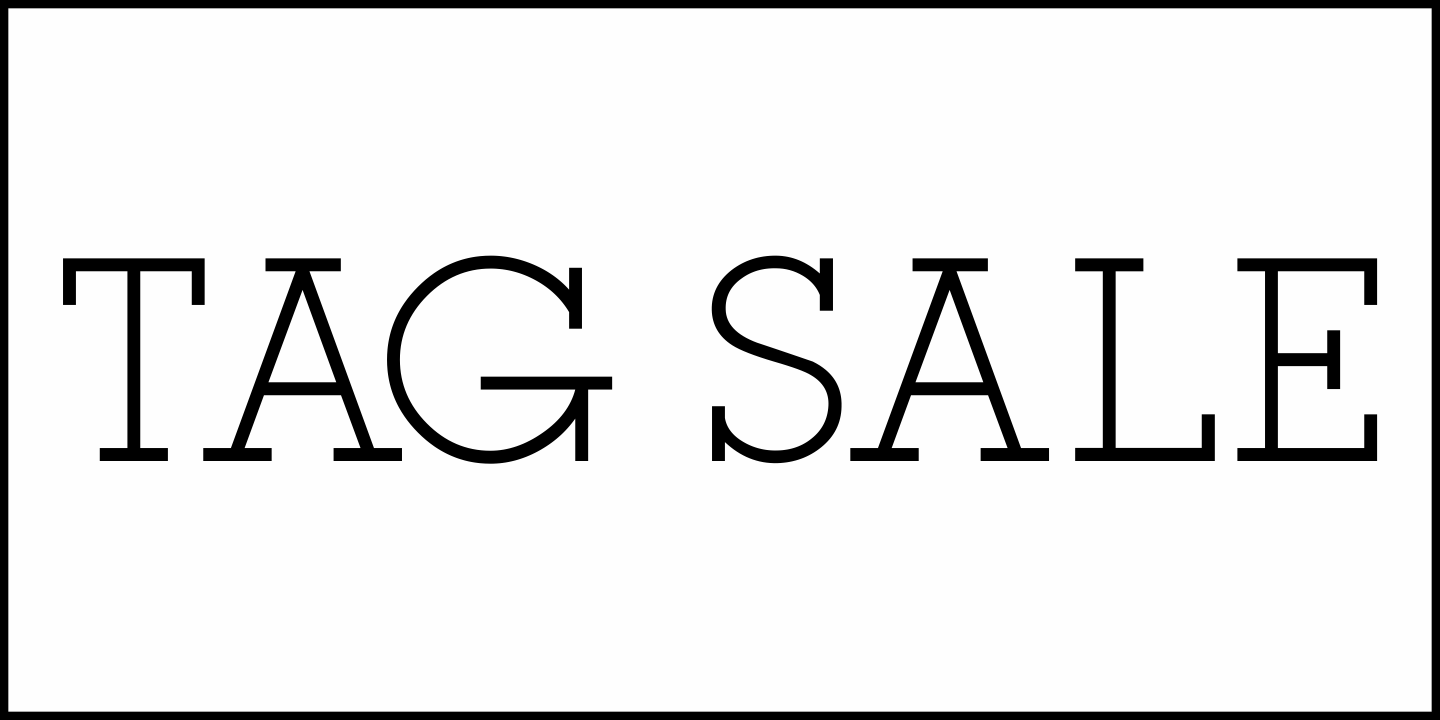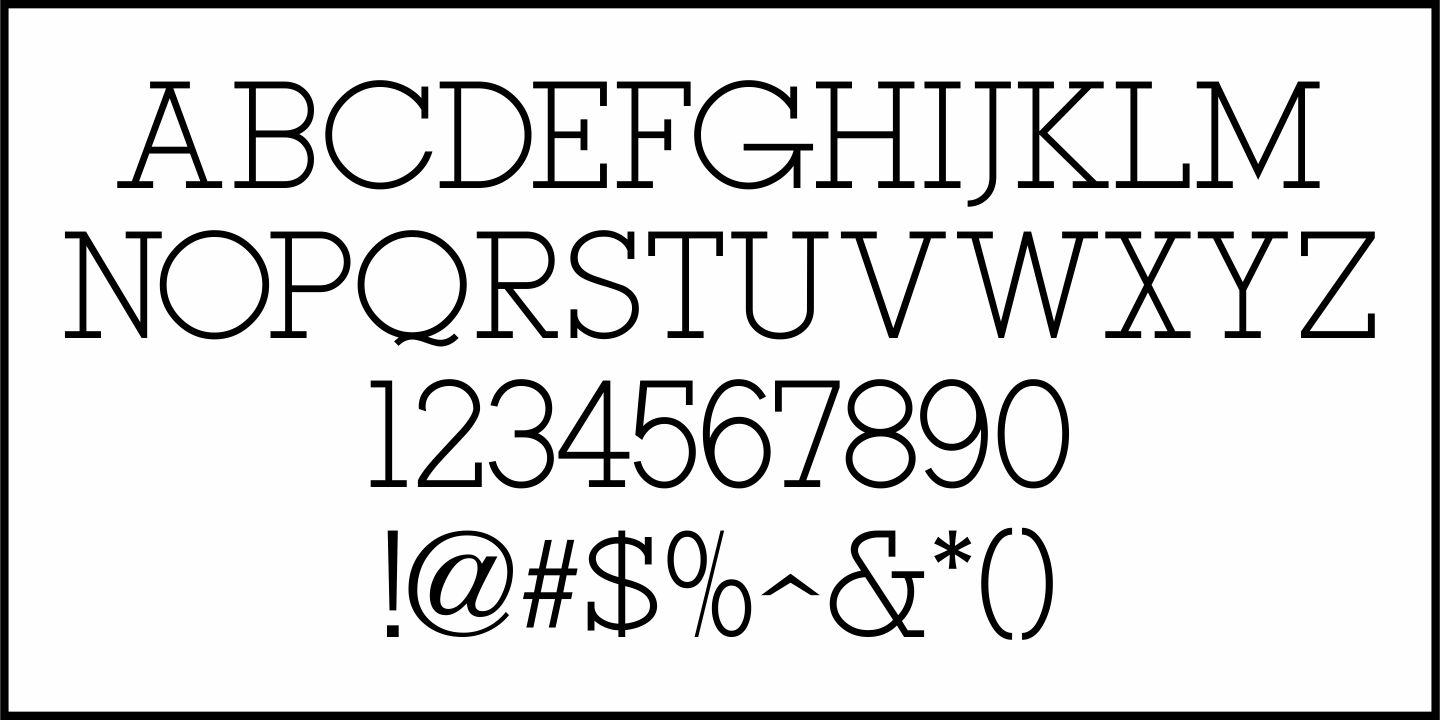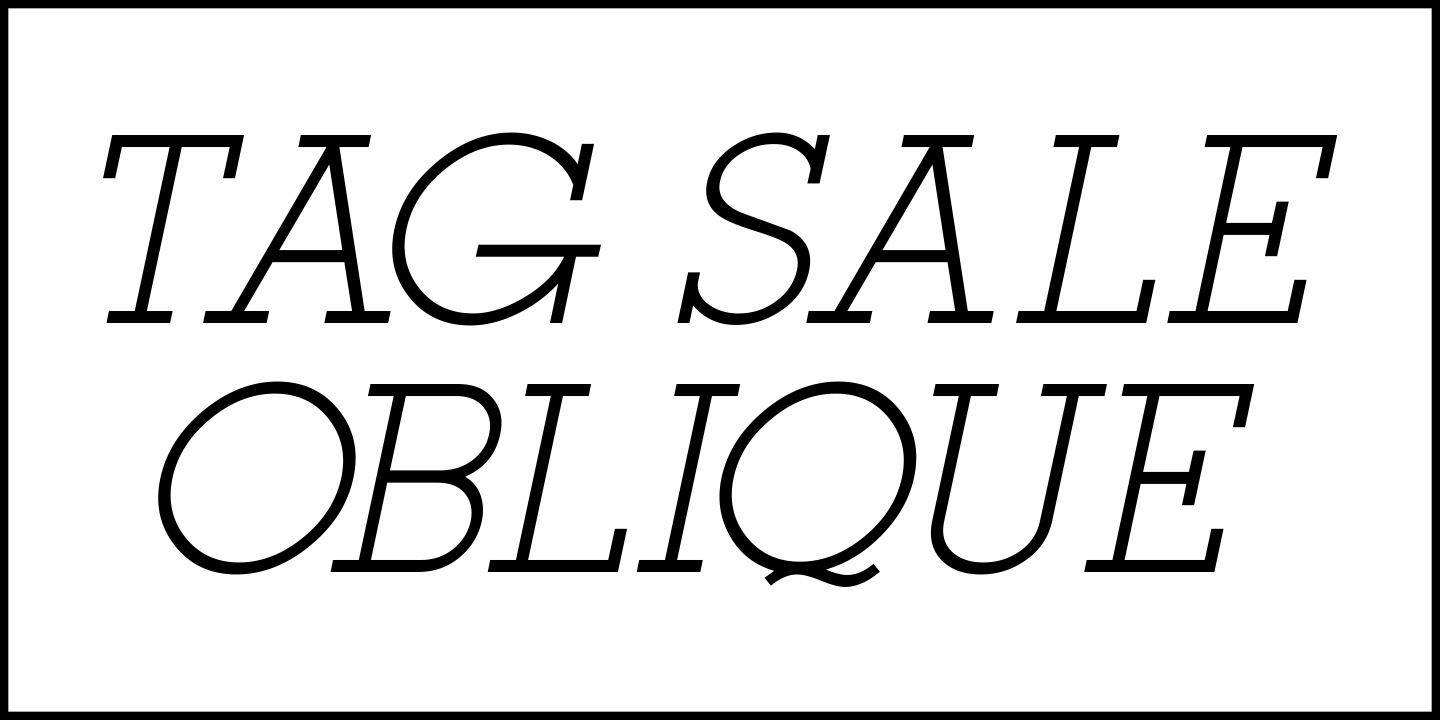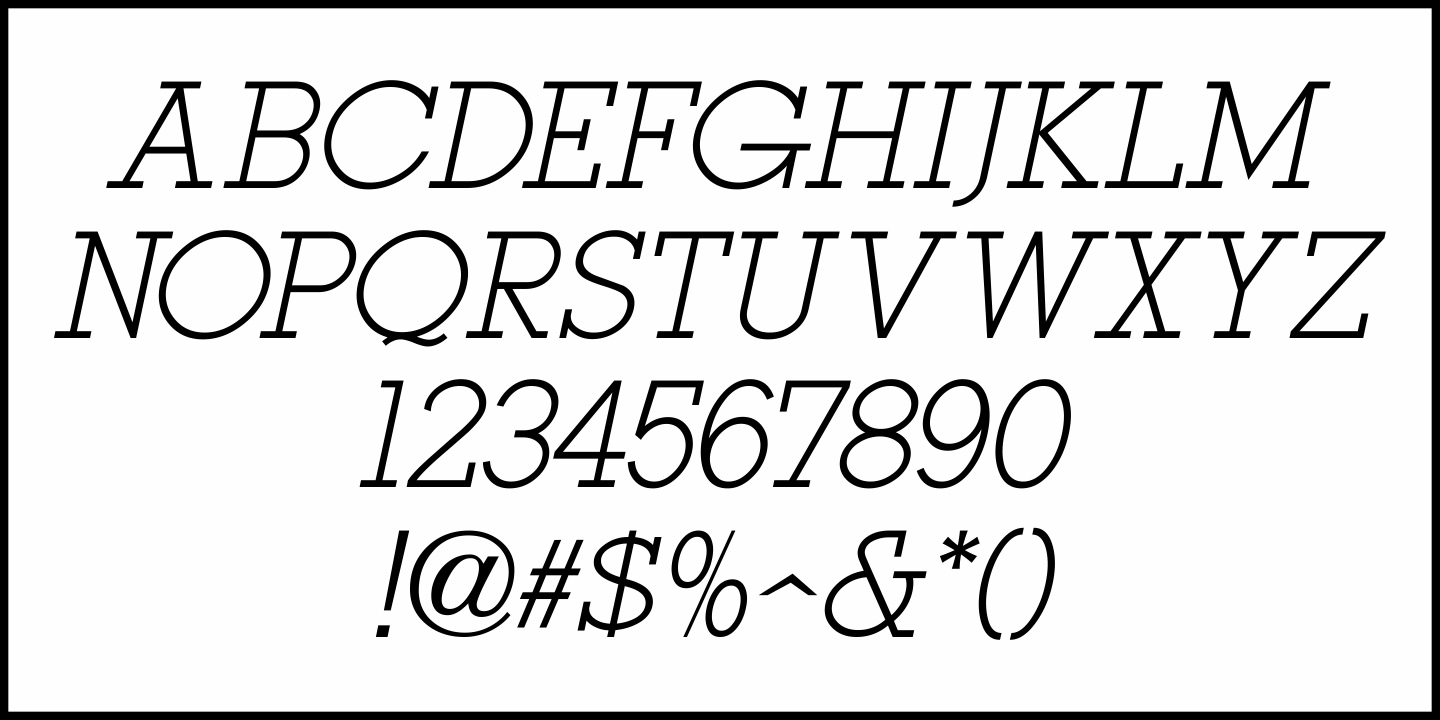
Tag Sale
Various sub-headlines and ad copy used in the Film Daily Year Book of Motion Pictures from 1946 were set in Stymie Light, an evergreen of slab serif metal type and of the same relative style group as Karnak, Rockwell and Beton.
An all-caps interpretation of this popular design, Tag Sale JNL is available in both regular and oblique versions.